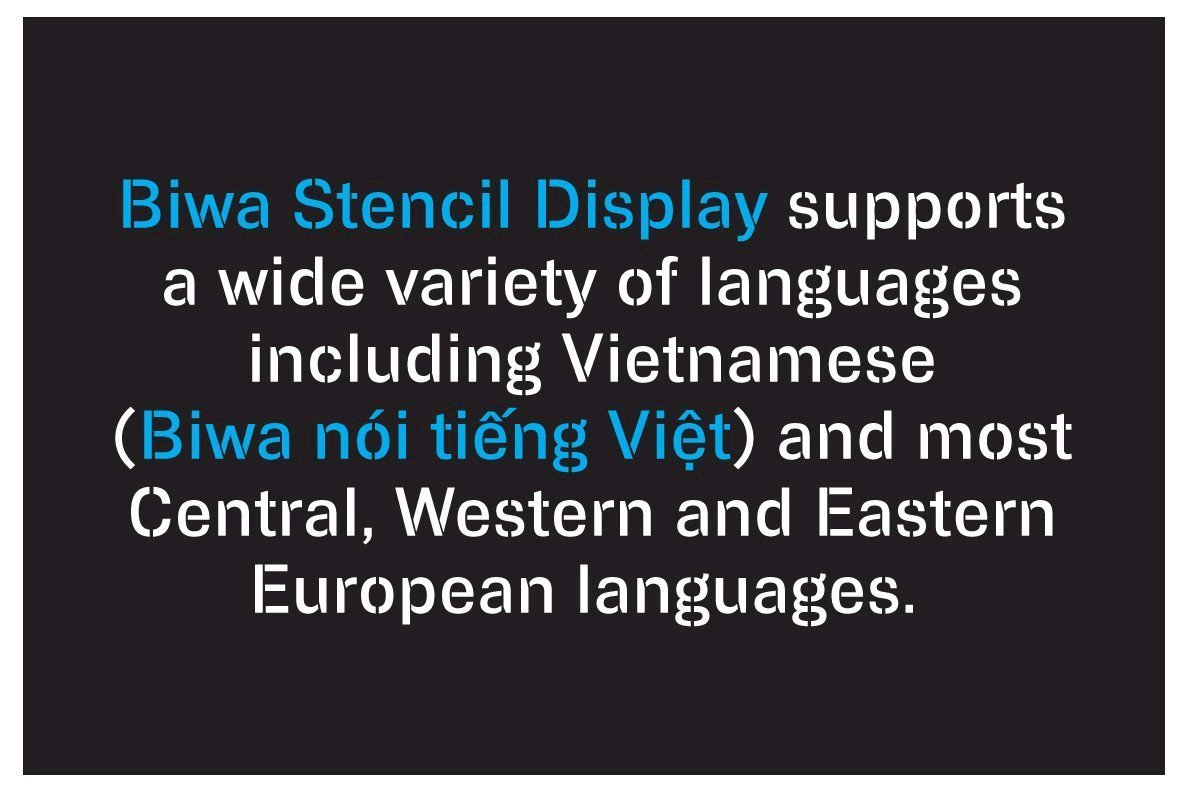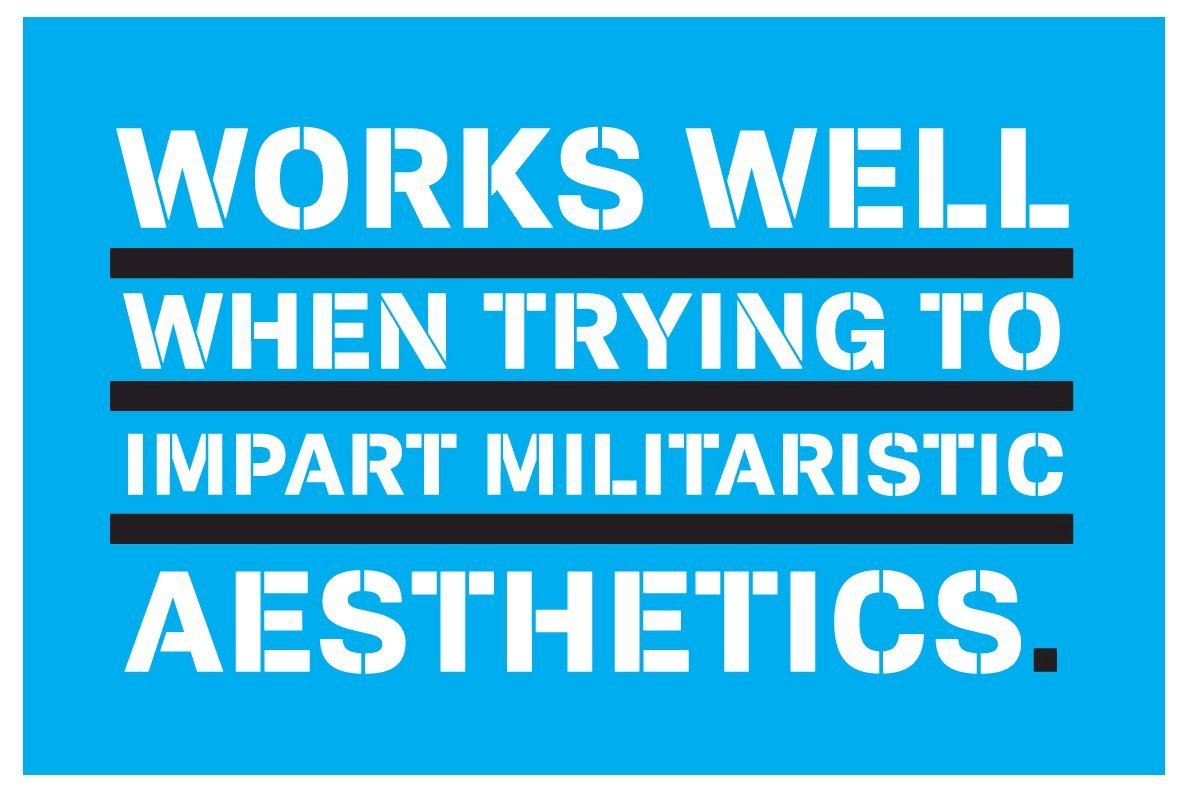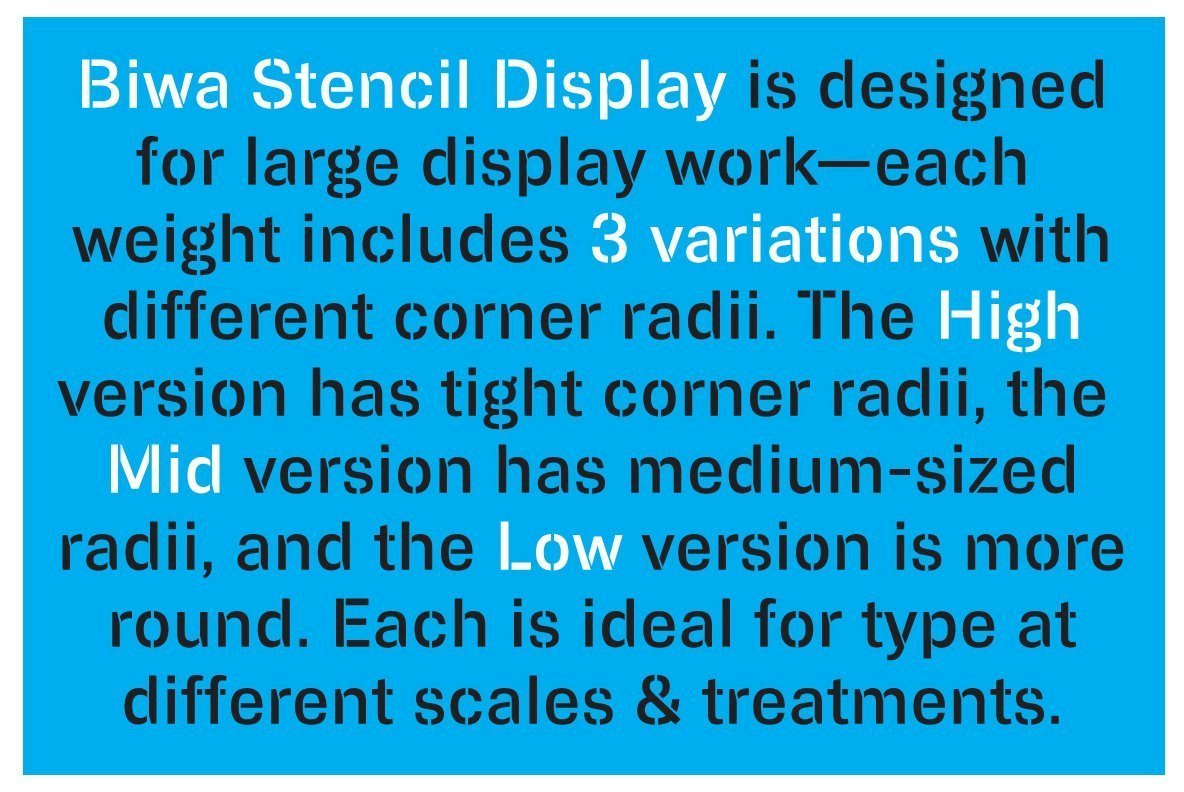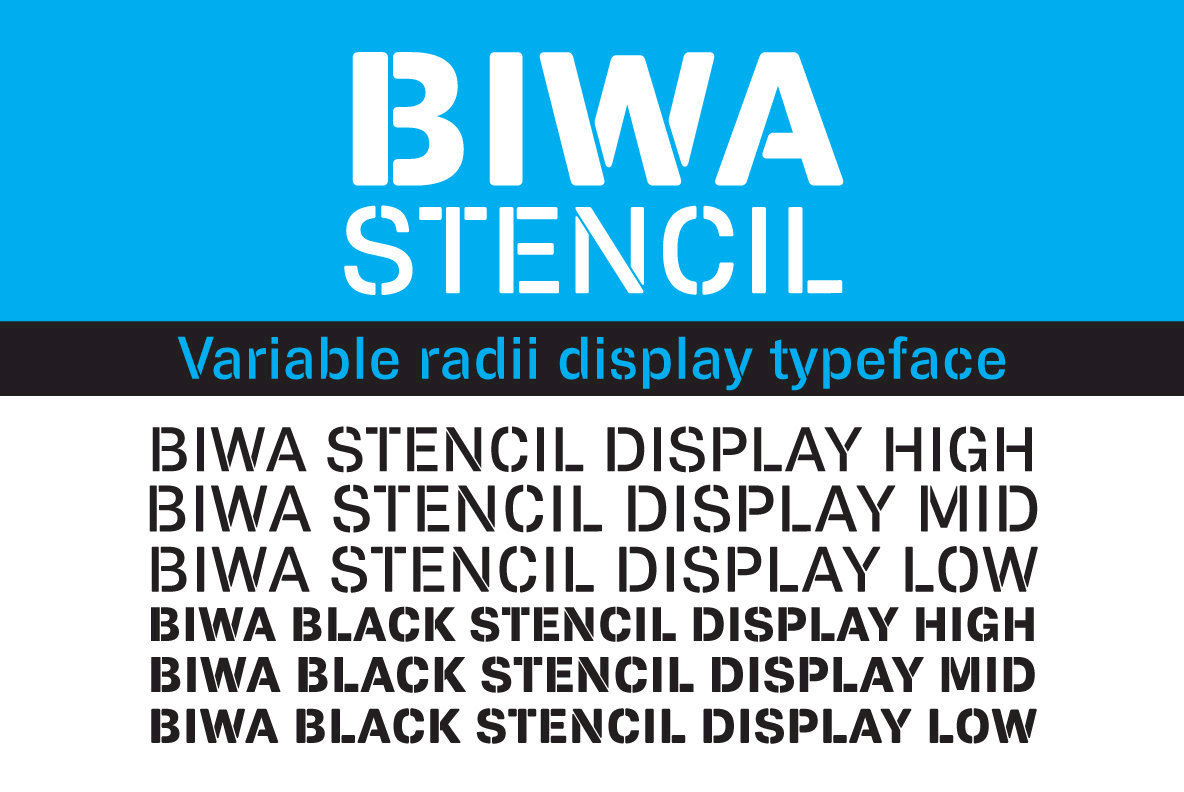
Biwa Stencil Display Font Family
Biwa Stencil Display is designed for large display work—each weight includes 3 variations with different corner radii. The High version has tight corner radii, the Mid version has medium-sized radii, and the Low version is more round. Each is ideal for type at different scales & treatments.
Biwa Stencil Display supports a wide variety of languages including Vietnamese (Biwa nói tiếng Việt) and most Central, Western and Eastern European languages.